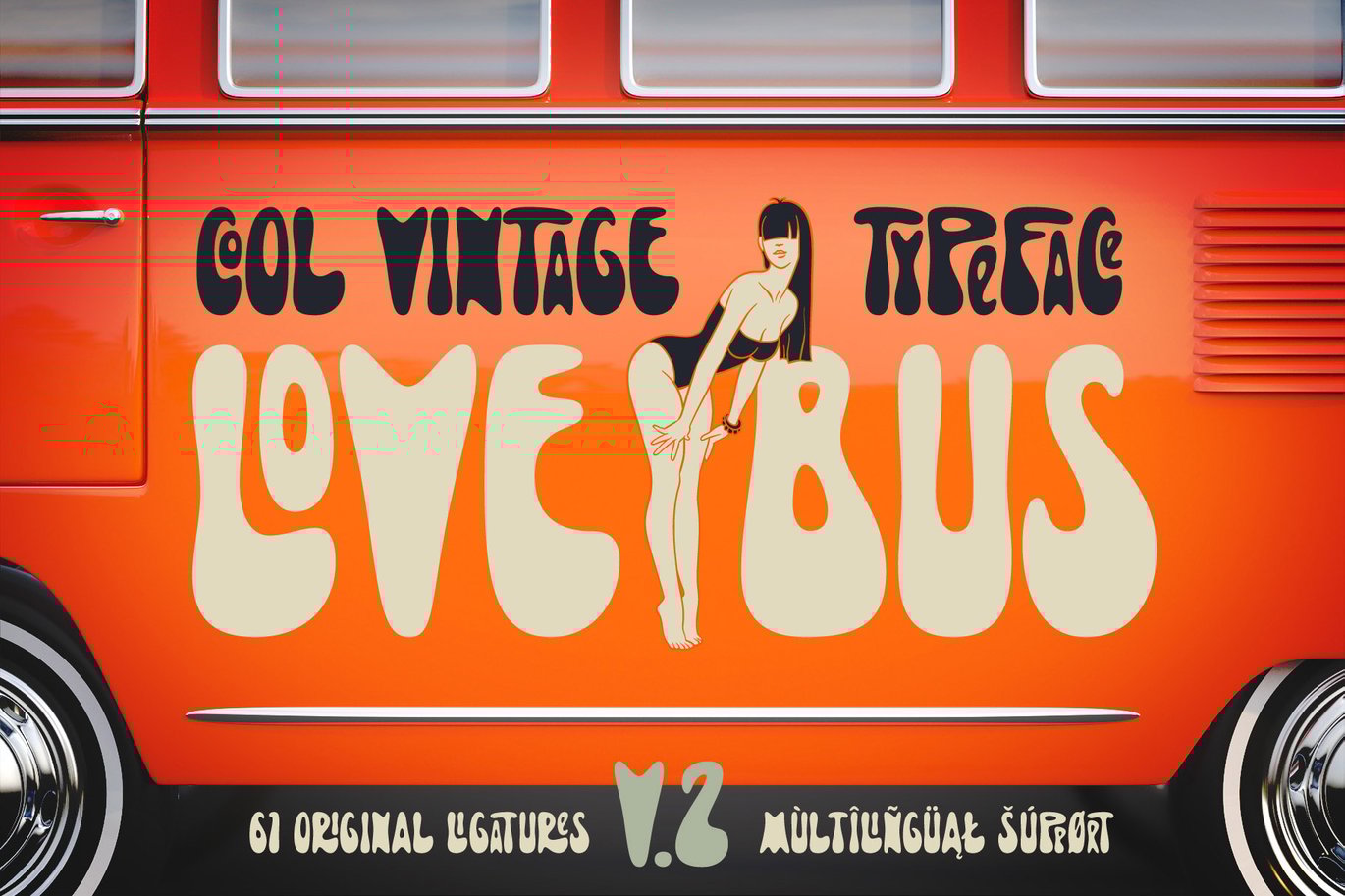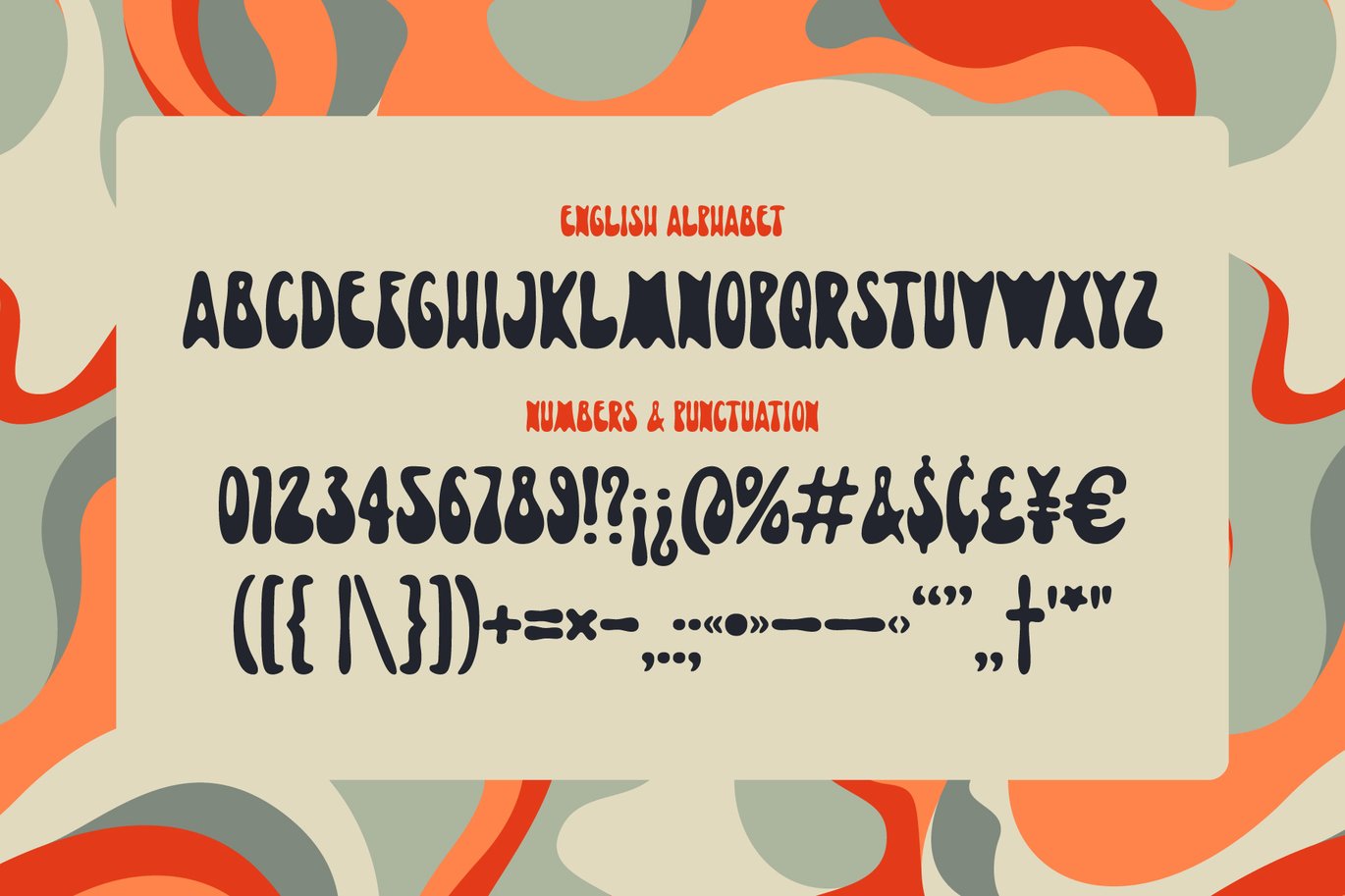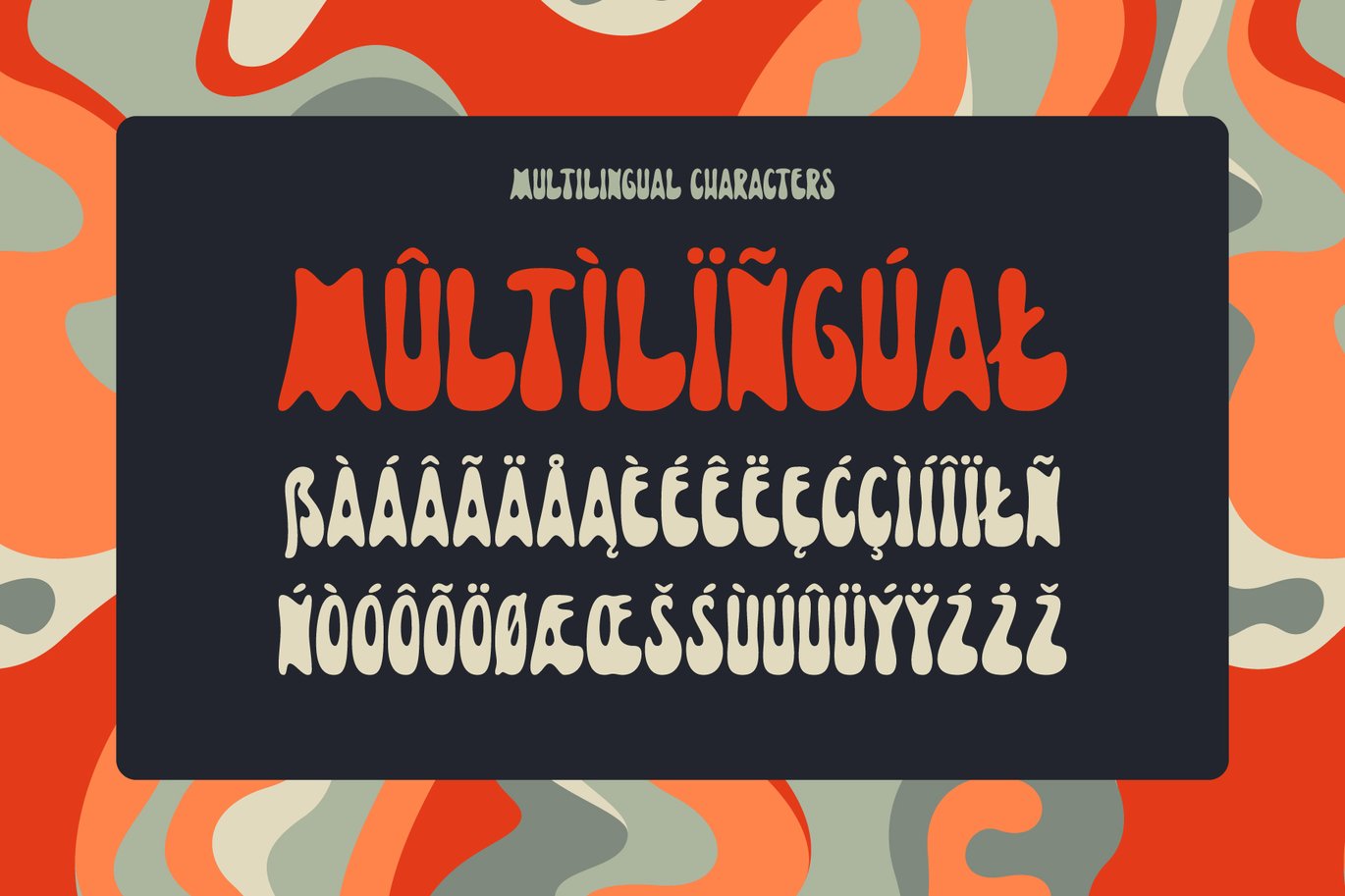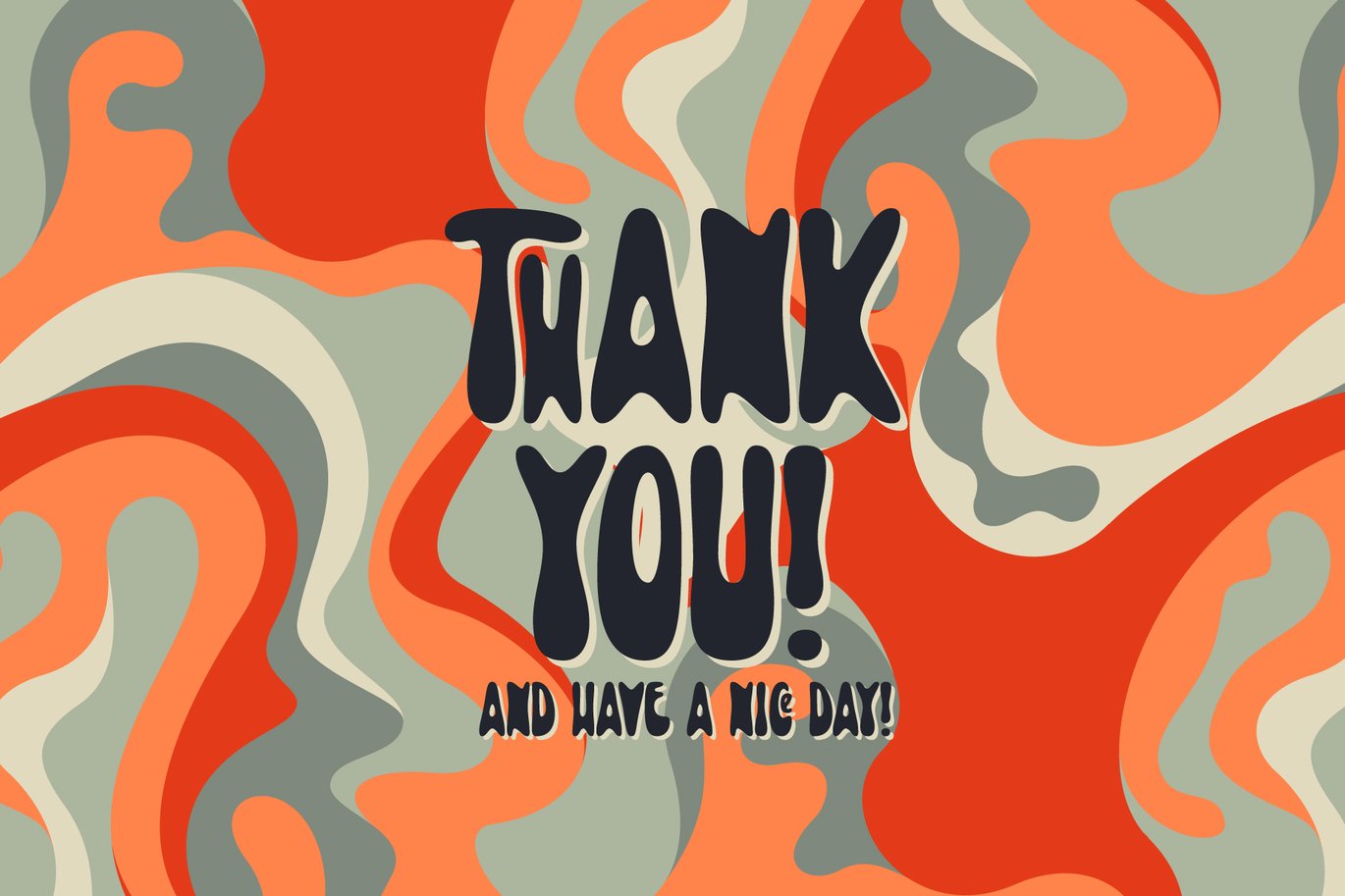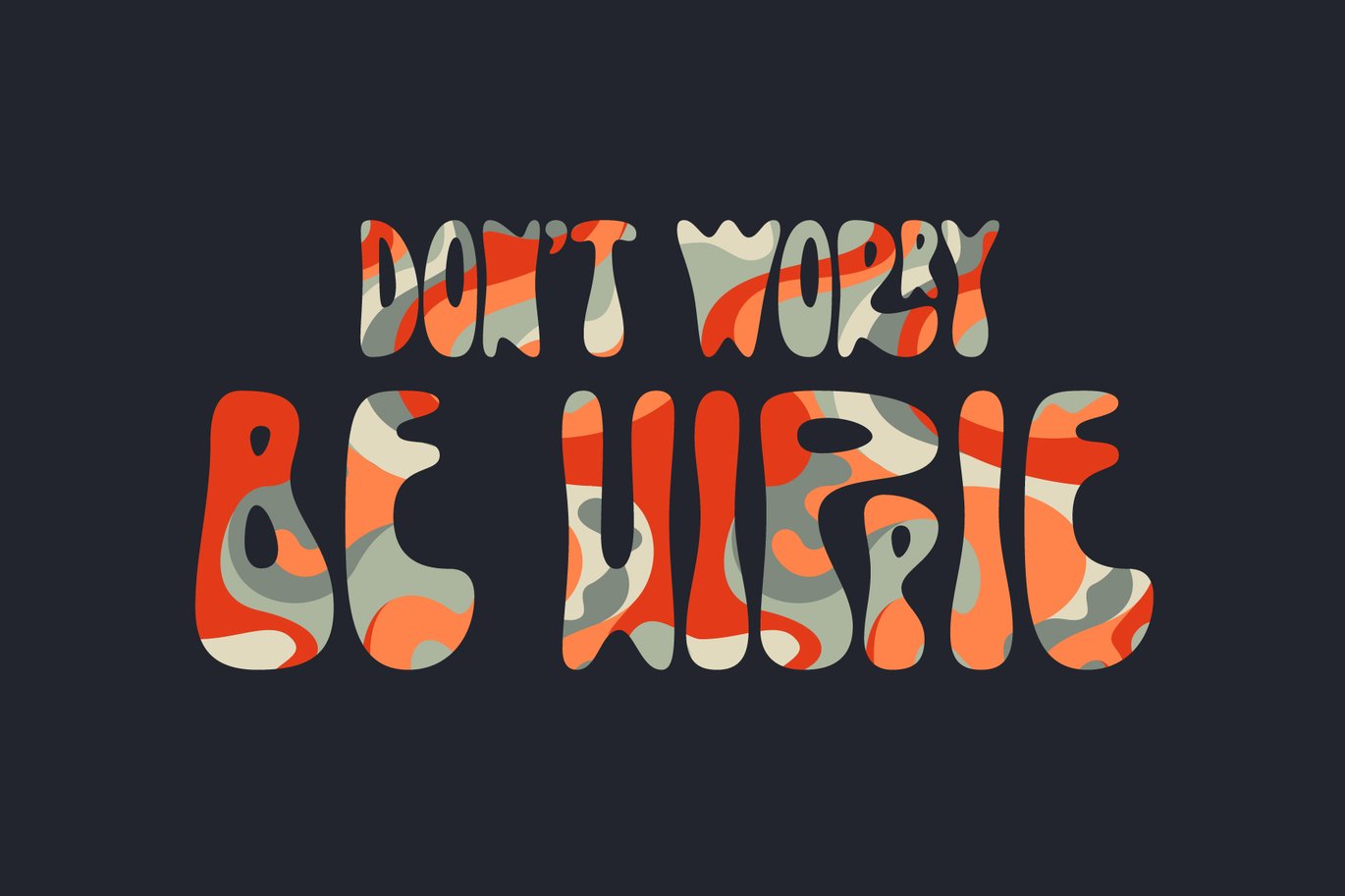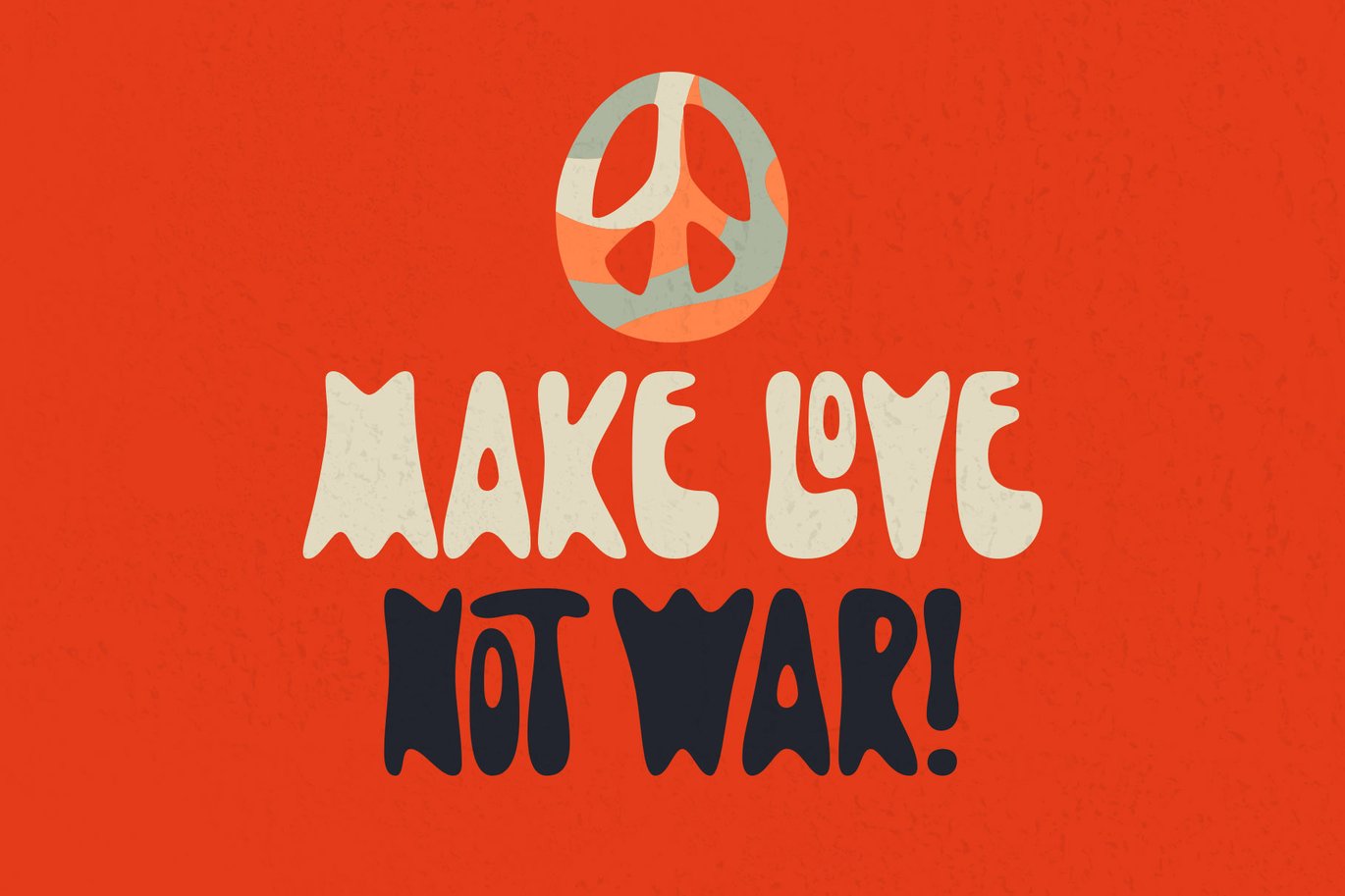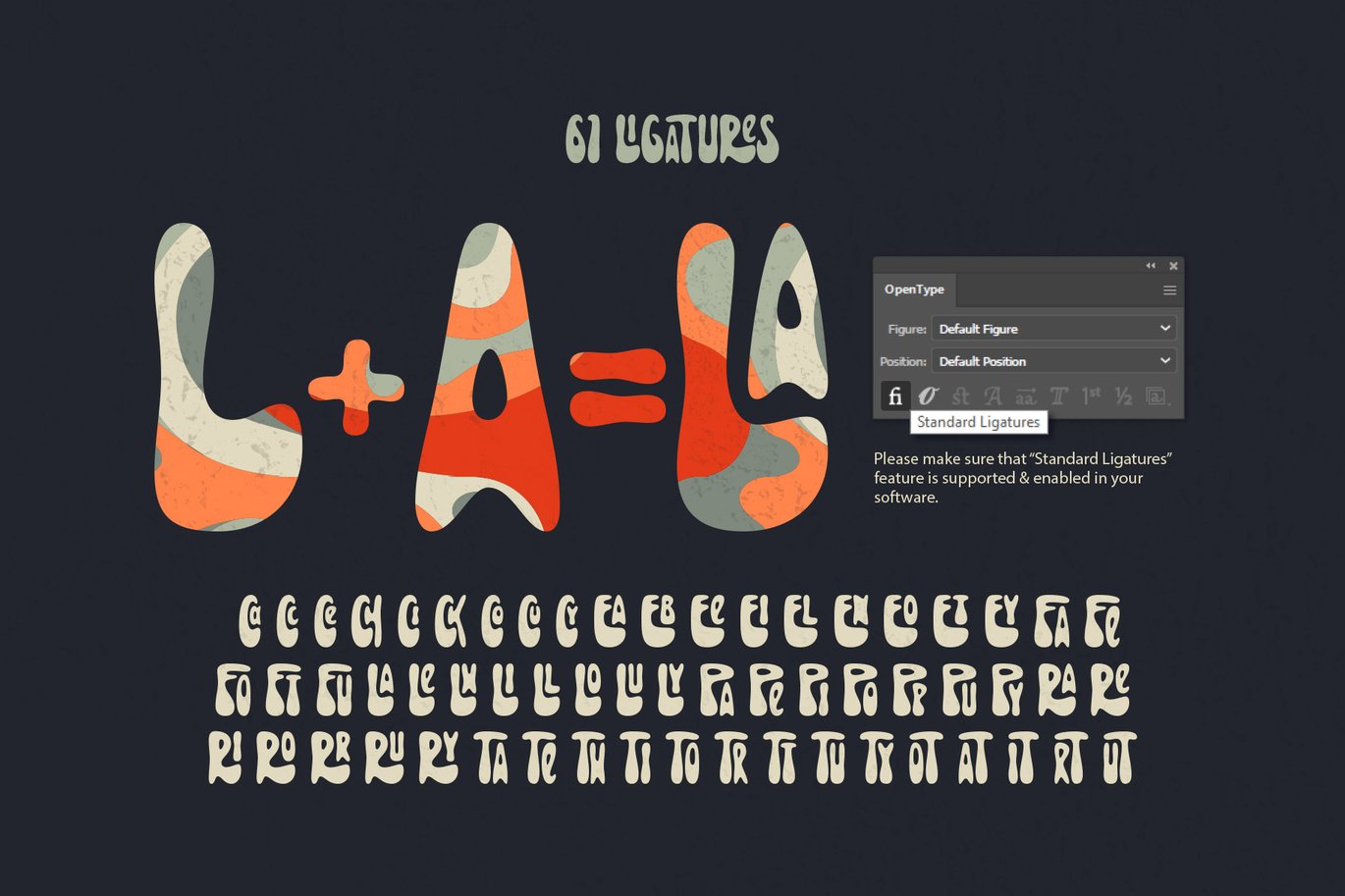
Lovebus v.2 Vintage Font
Hi! Introducing a bold and smooth font Lovebus v.2 inspired by the free-spirited vibes of the 1970s hippie subculture. With rounded, flowing letterforms and groovy aesthetics, it evokes memories of flower power, and psychedelic music posters. Perfect for projects celebrating creativity, freedom, and individuality, this font offers a modern take on a timeless style.
Lots of ligatures will help you to create an original lettering compositions (please make sure that OpenType features are supported & enabled in your software). Lovebus v.2 font has multilingual support (check out a screenshot with available characters).